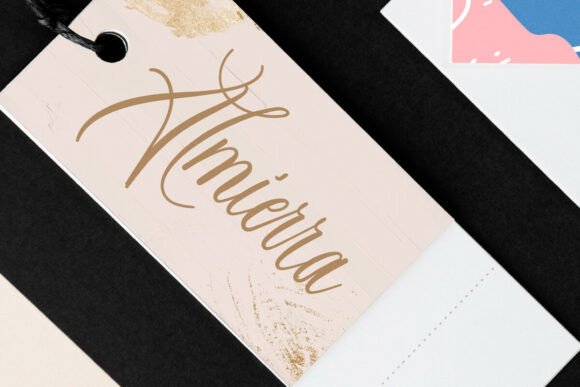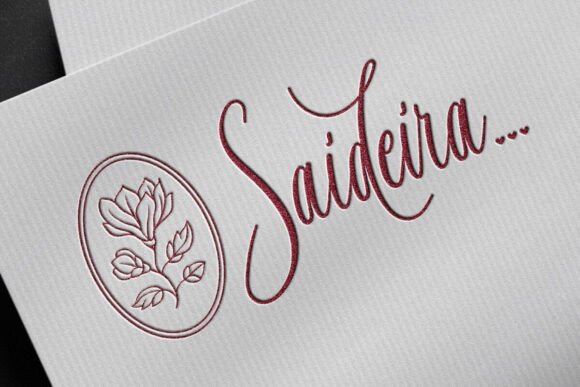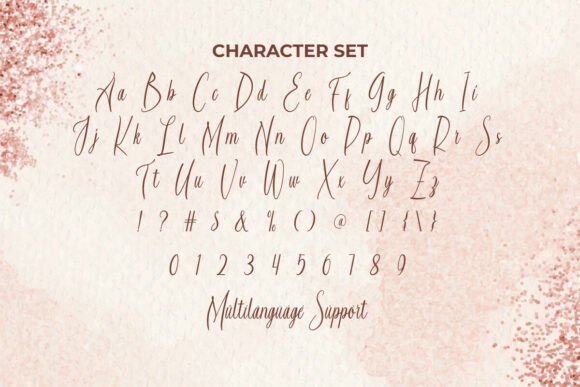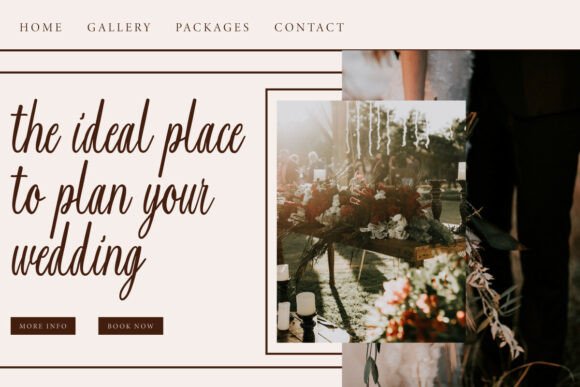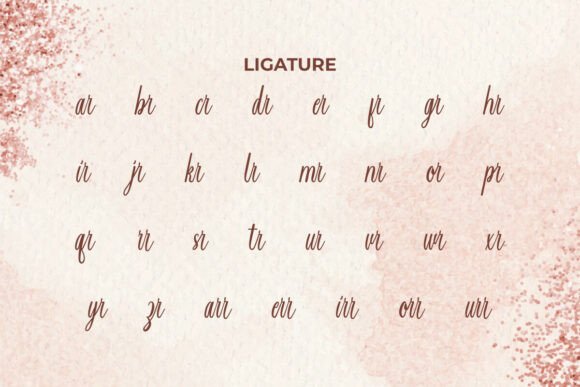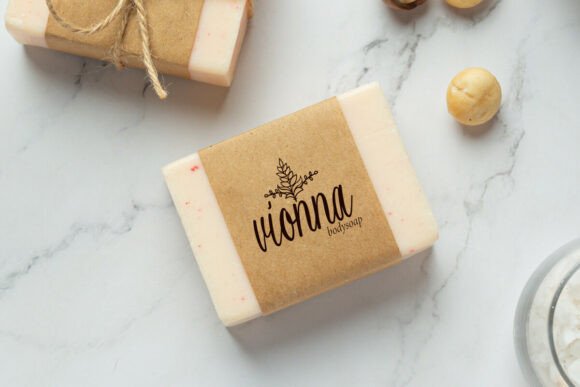
Introduction to Saideira Font
Saideira Font is a truly elegant modern script typeface that blends simplicity with natural beauty.
Featuring graceful ligatures and stylish alternate characters, it adds a sophisticated touch to any design project Whether youโre creating art posters, brand identities, brochures, cards, invitations, labels, logos, menus, mockups, product packaging, quotes, stationery, stickers, templates, titles, watermarks, or websitesโSaideira brings refined charm and visual harmony.
Saideira Font offers exceptional quality and versatility, making it a valuable addition to your design toolkit. Whether you’re creating for personal projects or commercial use, Saideira Font delivers professional results.